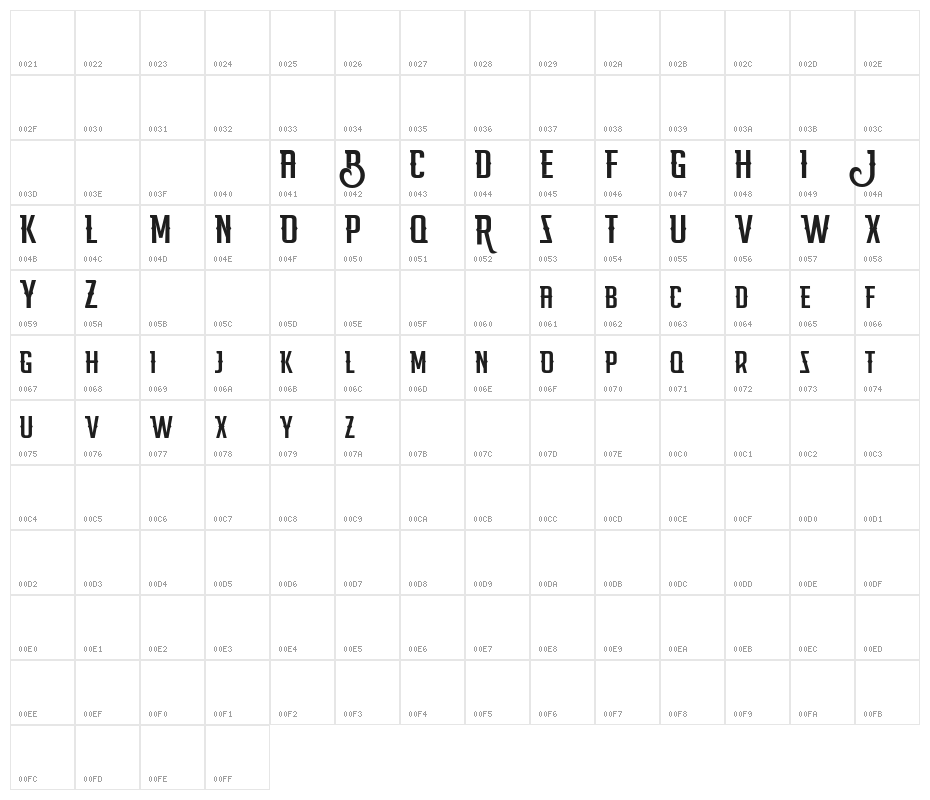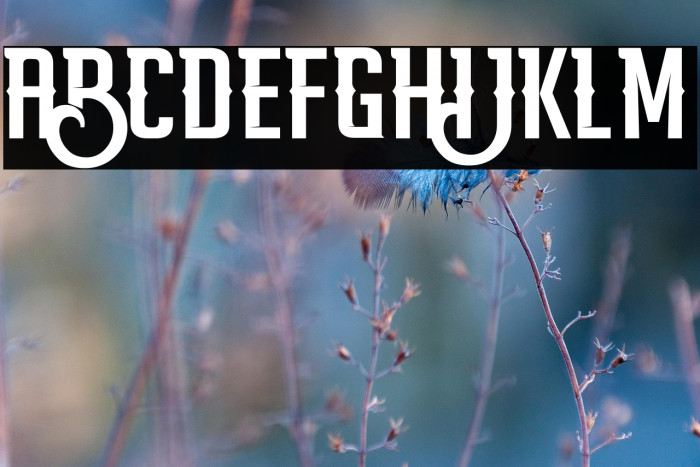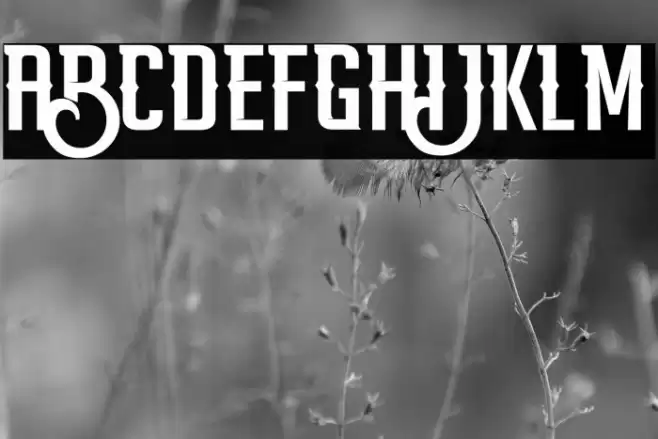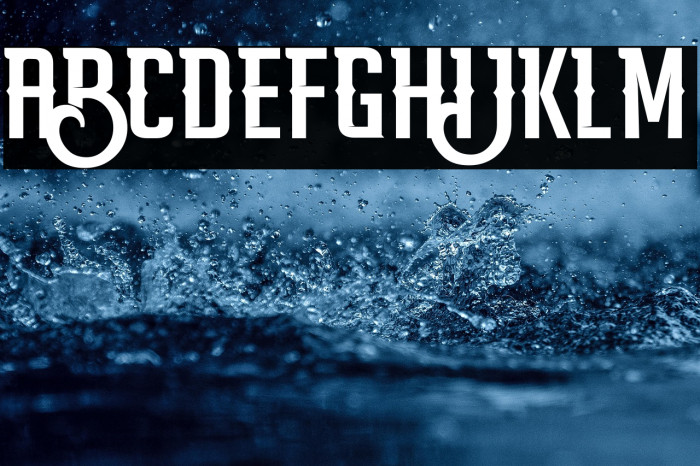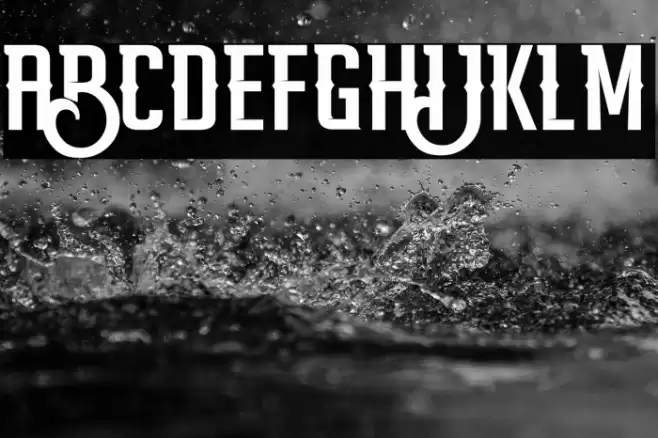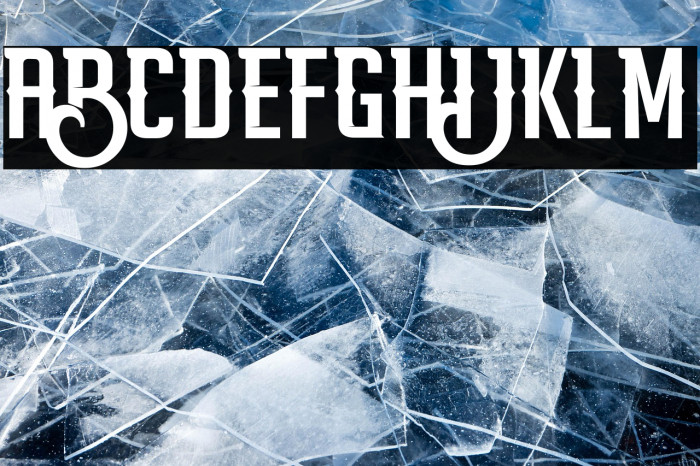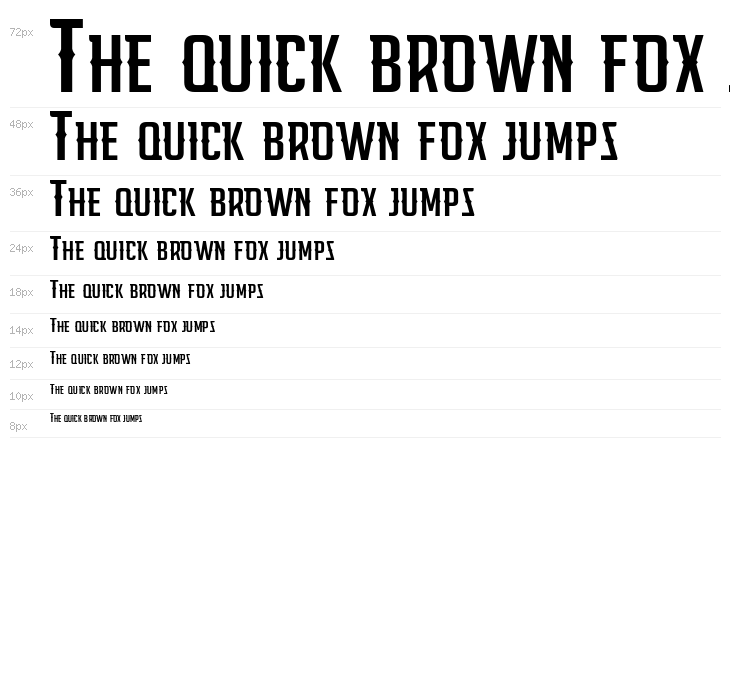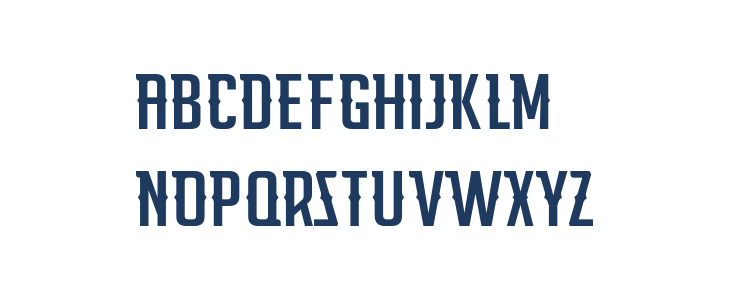
moge Font
moge Description
This font features a bold and striking design with unique, decorative elements that give it a distinct personality. The uppercase letters are characterized by sharp angles and geometric shapes, creating a sense of strength and modernity. The font's design includes intricate details, such as the extended curves on certain letters, adding a touch of elegance and flair. The overall appearance is both contemporary and artistic, making it suitable for projects that require a bold statement. The spacing between characters is tight, enhancing the compact and impactful look of the text.
| Proposed Projects | Ideal for branding, posters, headlines, and any design that requires a strong visual impact. |